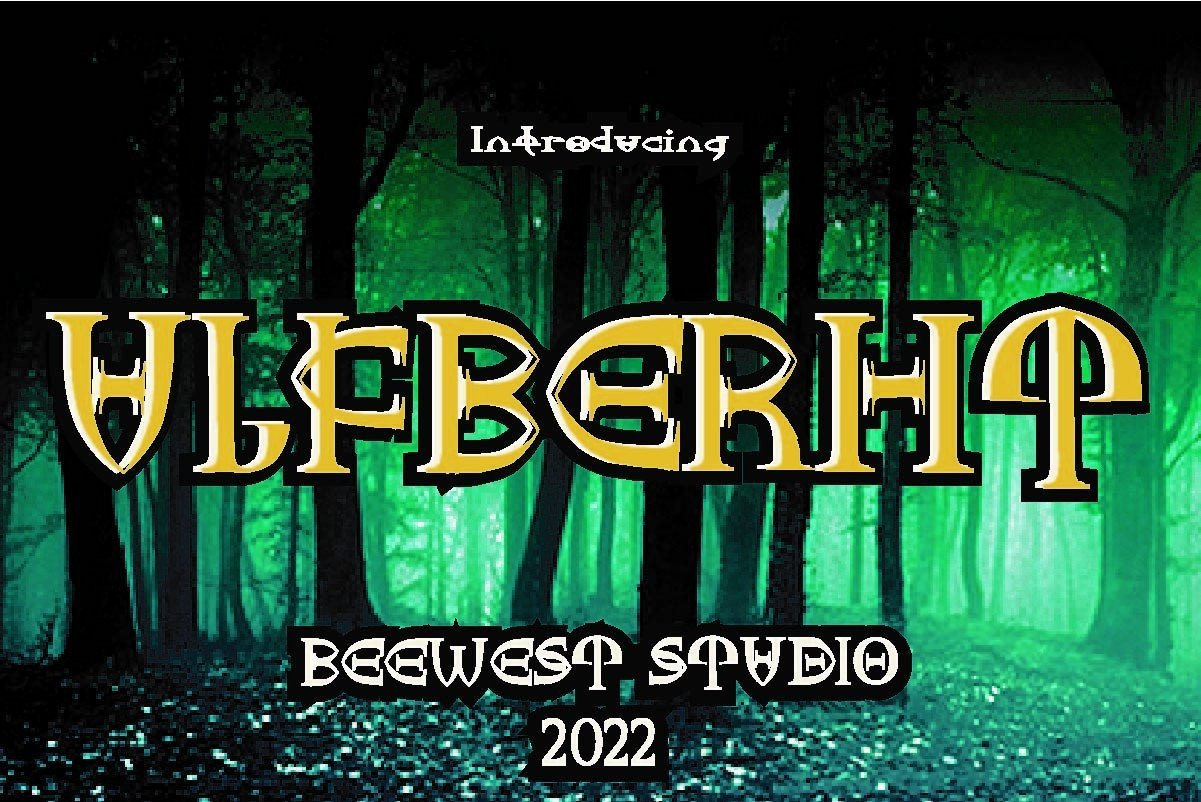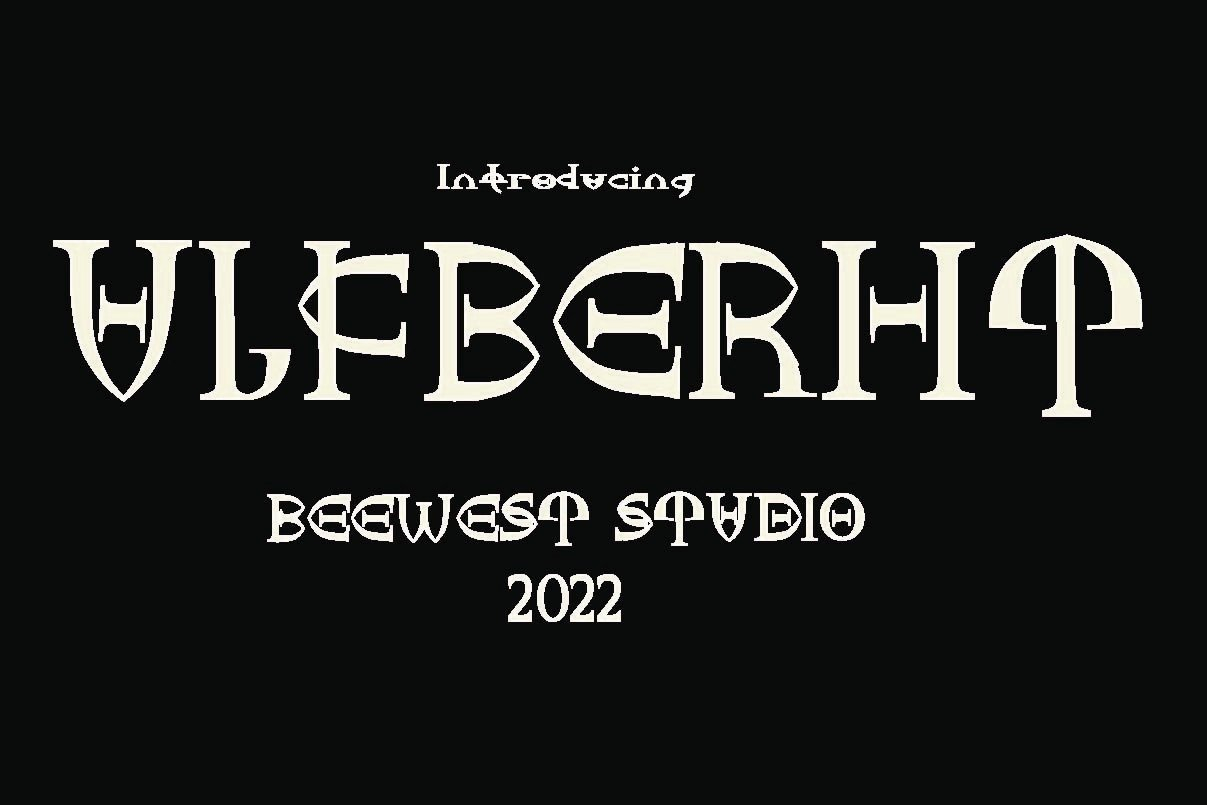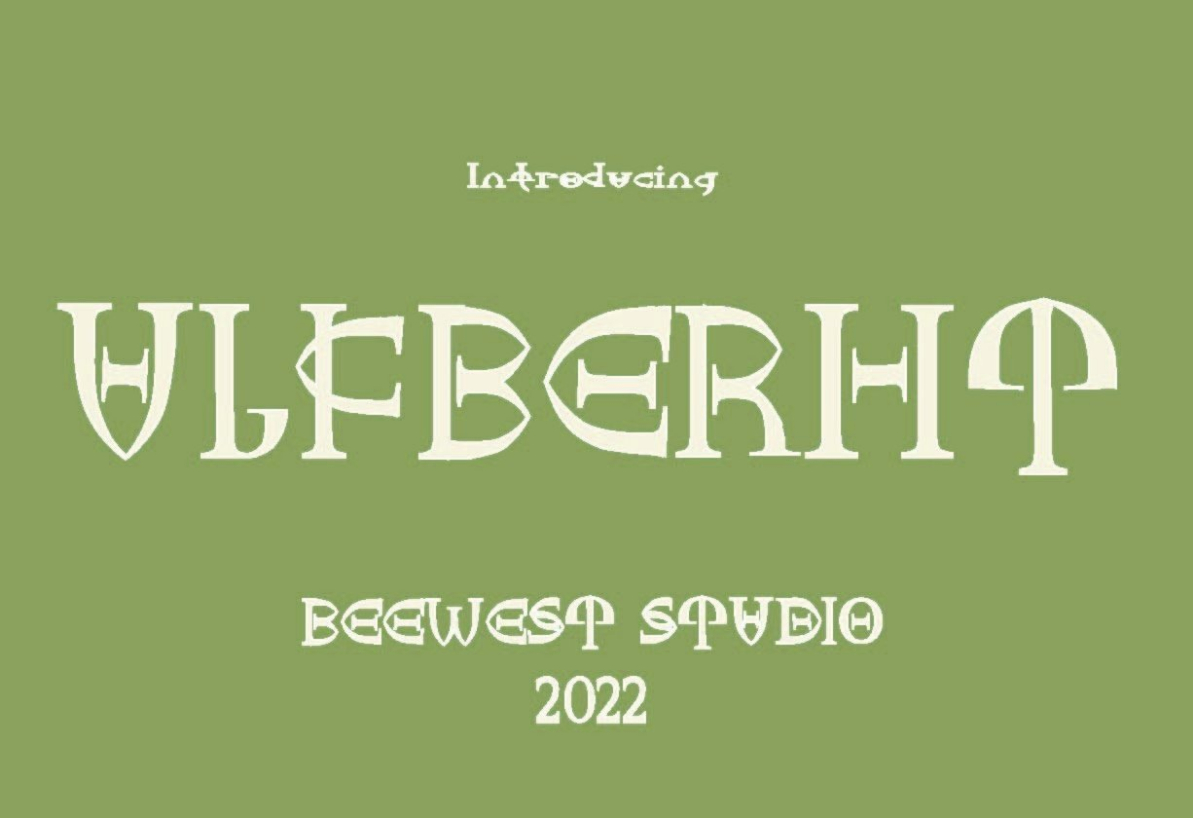
About Ulfberht Font
This font name is Ulfberht, which is inspired by the great ancient Viking sword. This font is suitable for Celtic, Nordic, and Viking cover books of folklore or mythology novels title. It is also great for t-shirts, apparel, colossal style posters, etc.